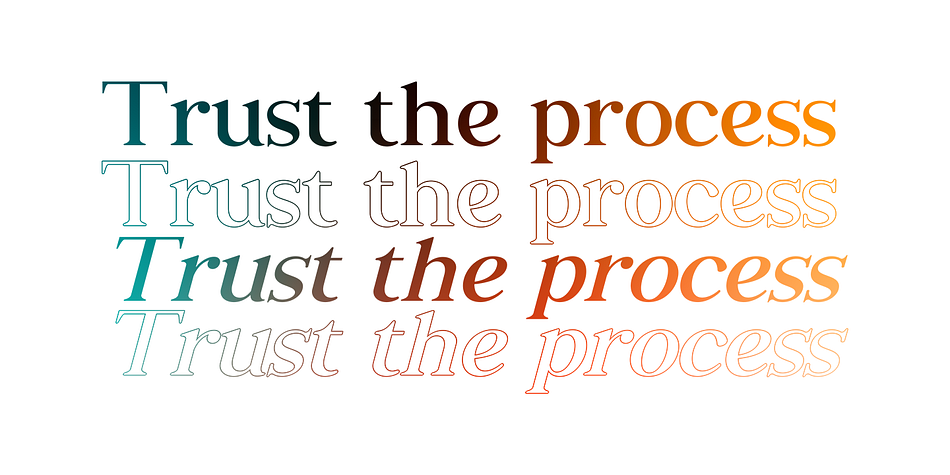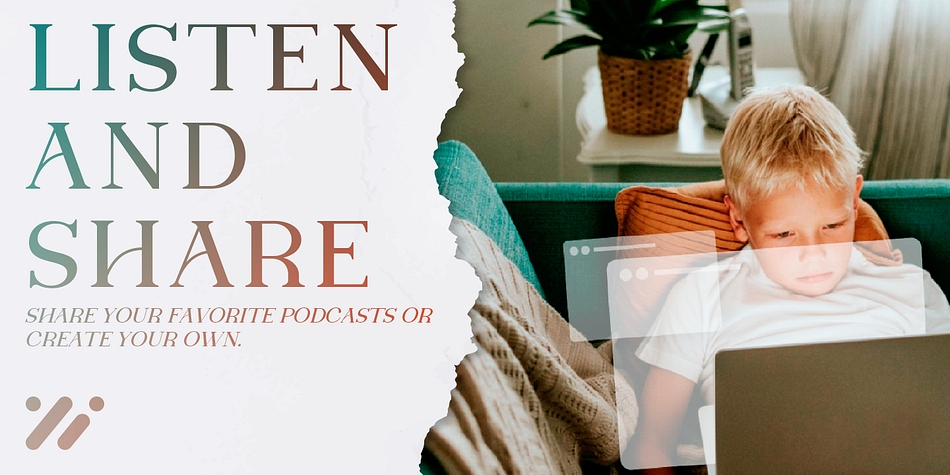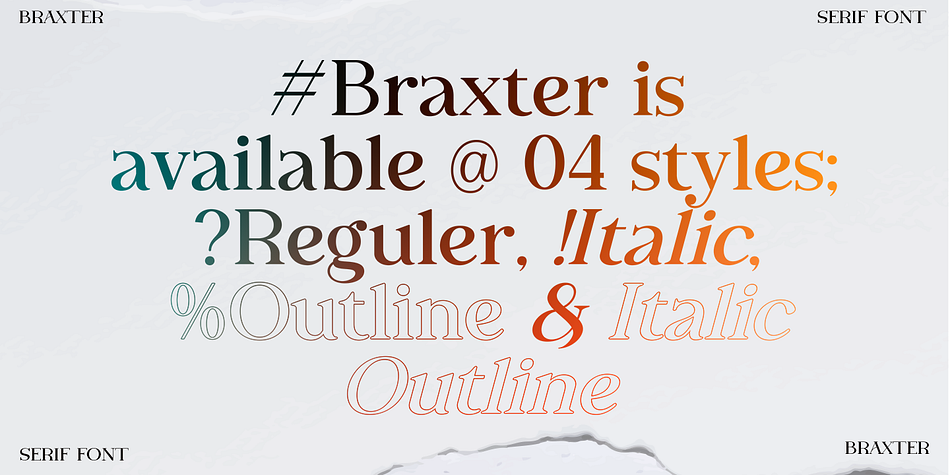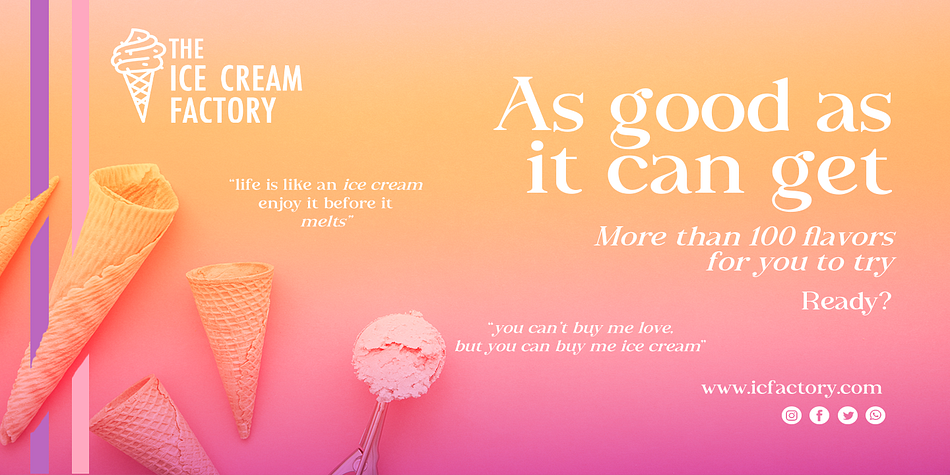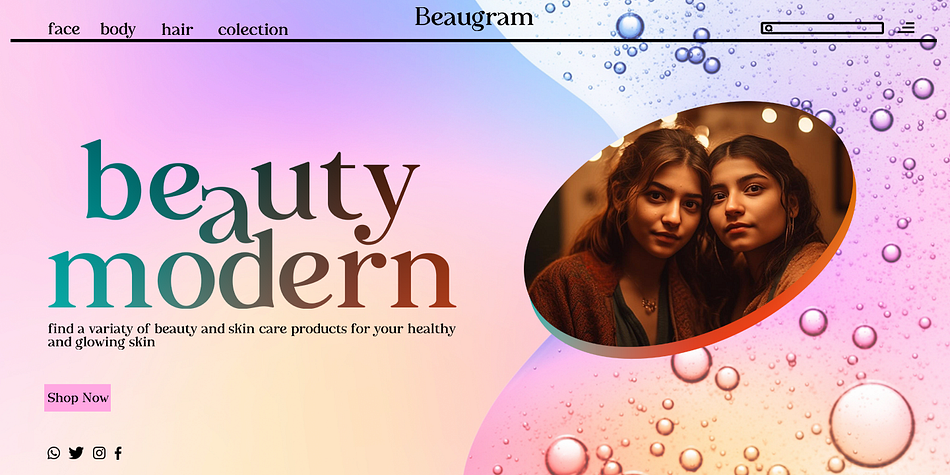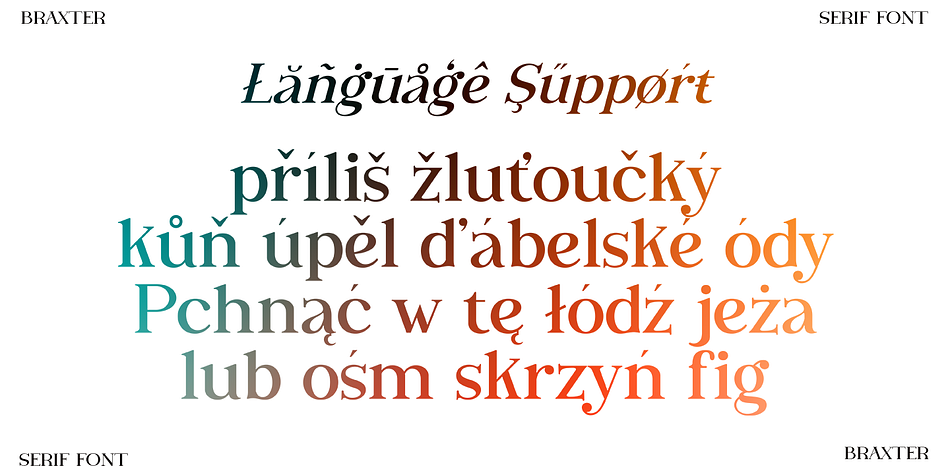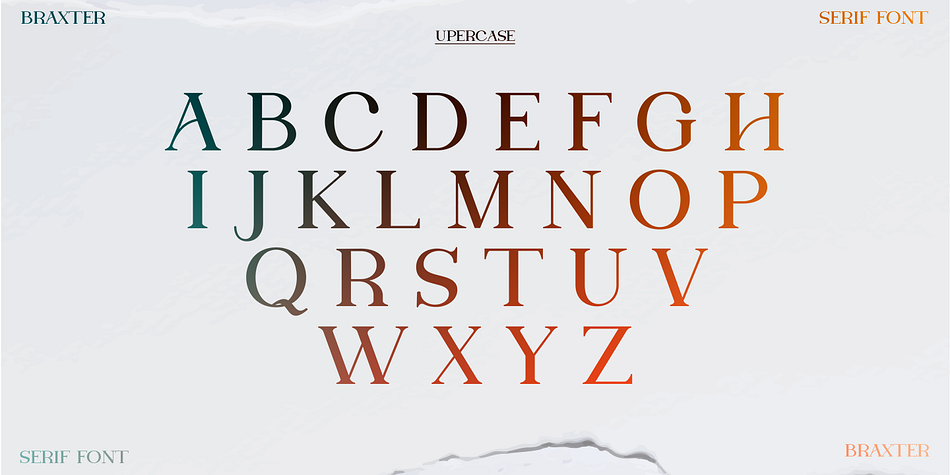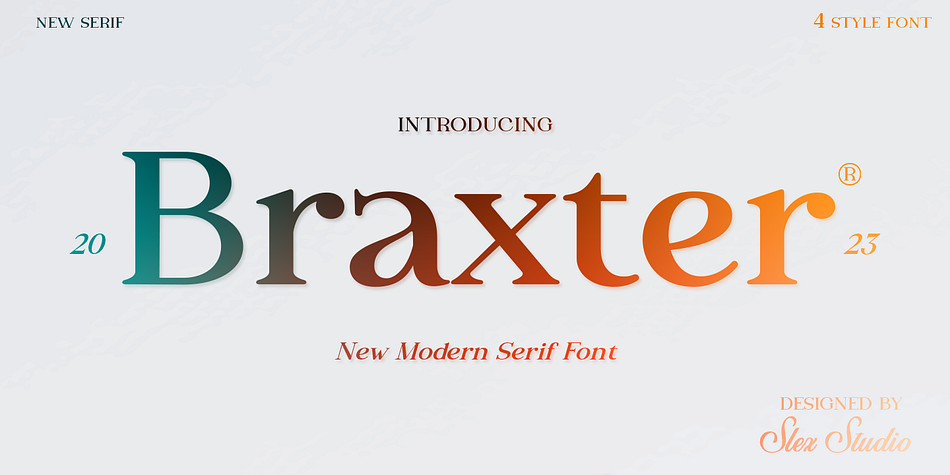
Braxter
Braxter is a display serif font family. This typeface has four styles and was published by Slex Studio.
Braxter is a classic and elegant retro serif with a modern twist. With its decent readability, Braxter is perfect for display and body text.
Inspired by all the retro aesthetics that are making a comeback, Braxter is perfect for creating nostalgic but clean and elegant designs such as logos, packaging, editorials, and more.